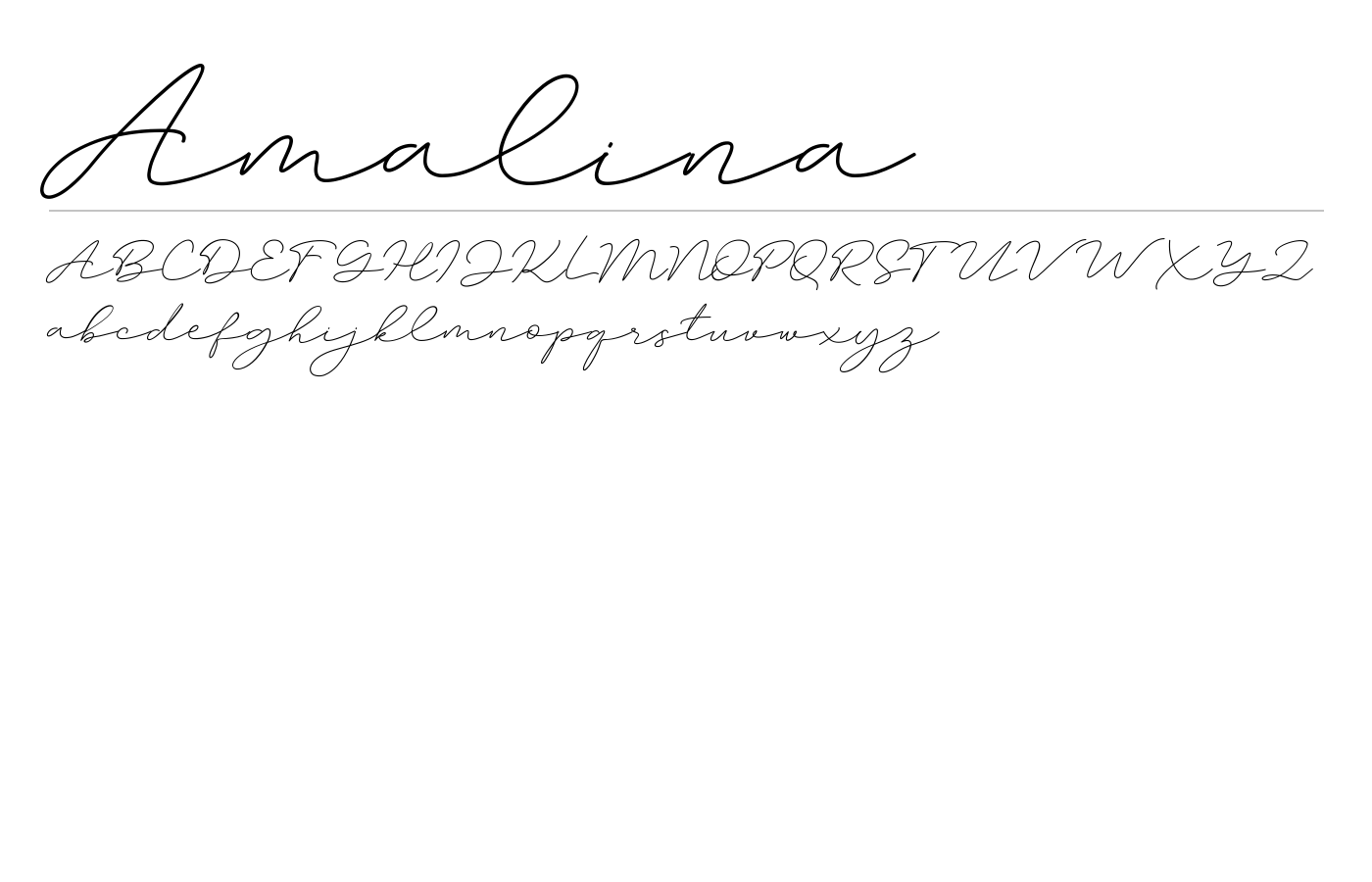
Amalina is an elegant, delicate script font featuring fine, flowing lines that mimic natural handwriting with a smooth, continuous style. Its light weight and graceful curves give it a refined and feminine feel, making it perfect for wedding invitations, branding for luxury or fashion products, and any design requiring a personal, sophisticated touch. This font works best in large sizes where its intricate details can shine, adding a sense of warmth and elegance to creative projects.
| Font family | Amalina Font |
| Designer | Subectype. 2019 |